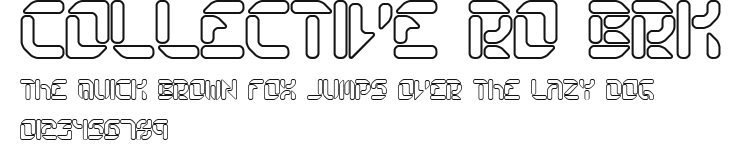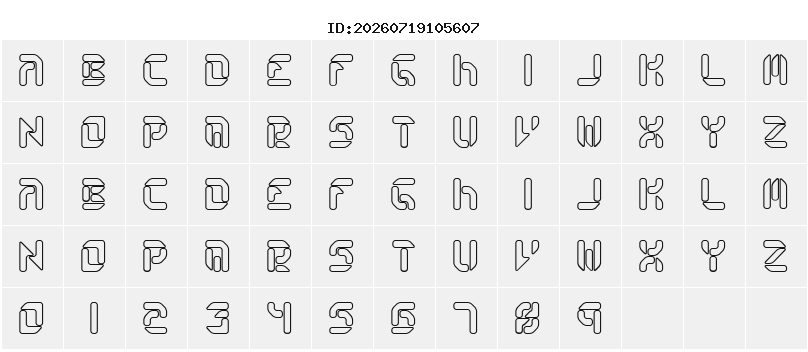
• Font Name: Collective RO BRK
• Full Font Name: Collective RO BRK
• PostScript Name: CollectiveROBRK
• Character Count: 70
About Collective RO BRK.ttf
Collective RO BRK.ttf is a modern, elegant sans-serif font designed for ultimate readability and visual harmony. Perfect for branding, headlines, web design, and print materials.